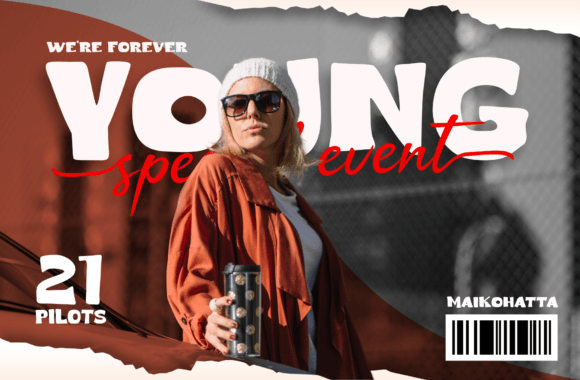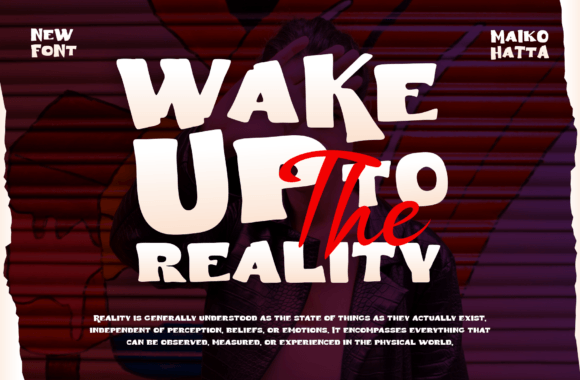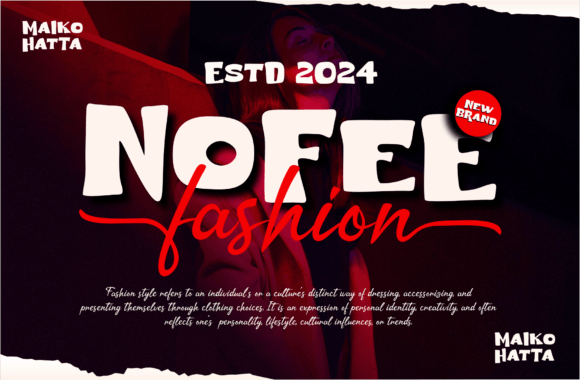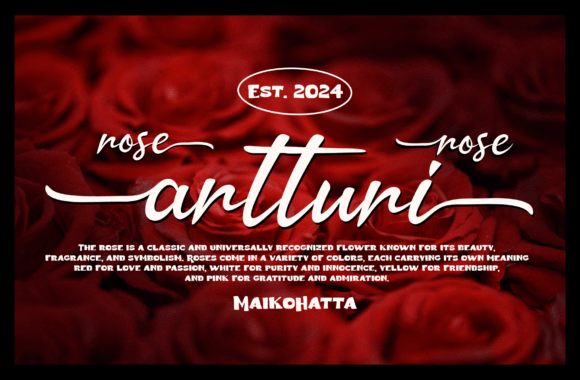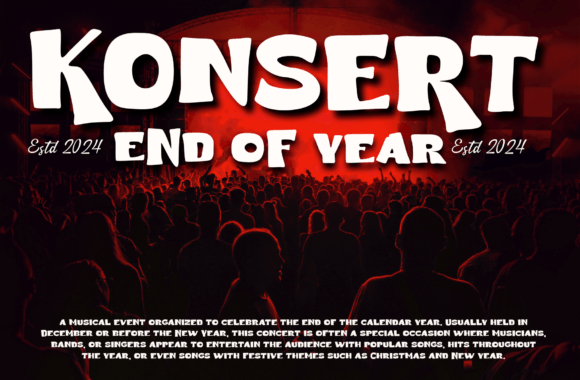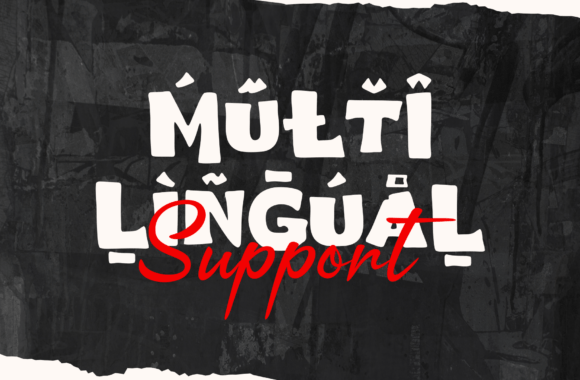
Introduction to Neizon Font
Introducing our new product **Neizon** Decorative Duo This collaboration between serif and script fonts combines the elegance of serifs with the warmth of script handwriting.
Serif fonts provide a structured base, while script fonts add a touch of creativity The result is a contrasting yet eye-catching visual harmony, perfect for conveying messages from formal to personal with a uniquely alluring style.